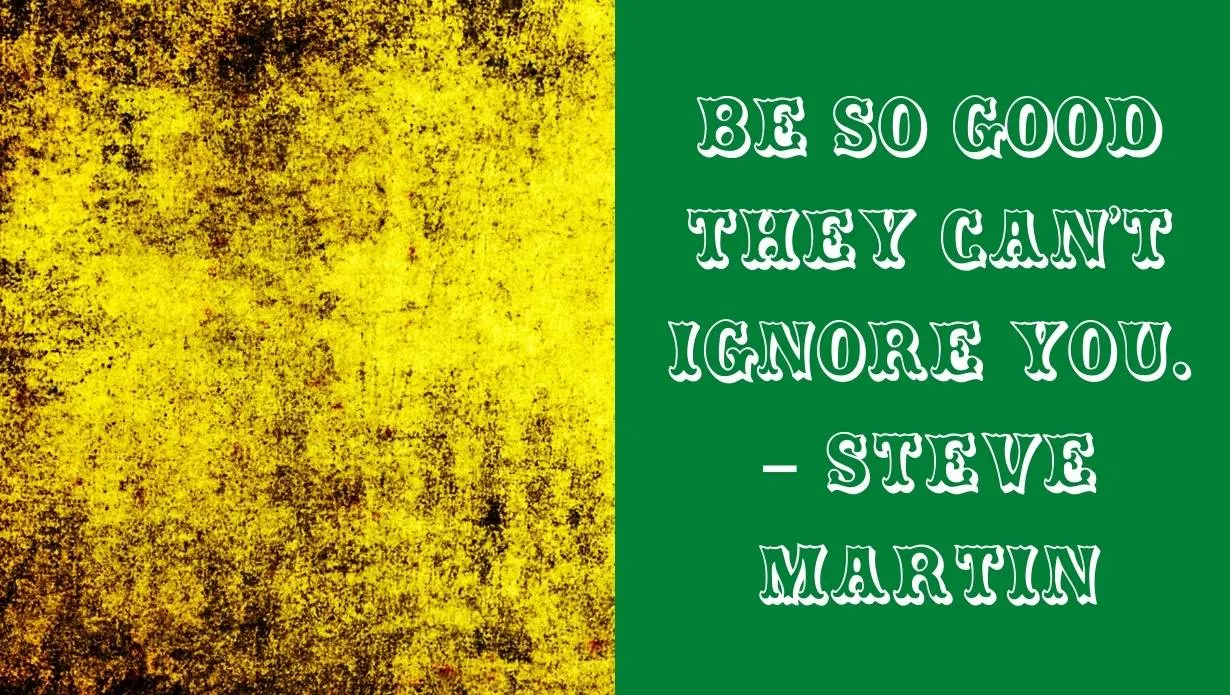
In this article, we will give you a lovely and beautiful typeface named Carnival Font. This Font is a family member of the fancy typeface. This typeface is created by Richard William Mueller was the one who took the cost of designing it for the first time.
The font style also comes in two types: Regular and Bold.
| Name | Carnival Font |
| Designer | Richard William Mueller |